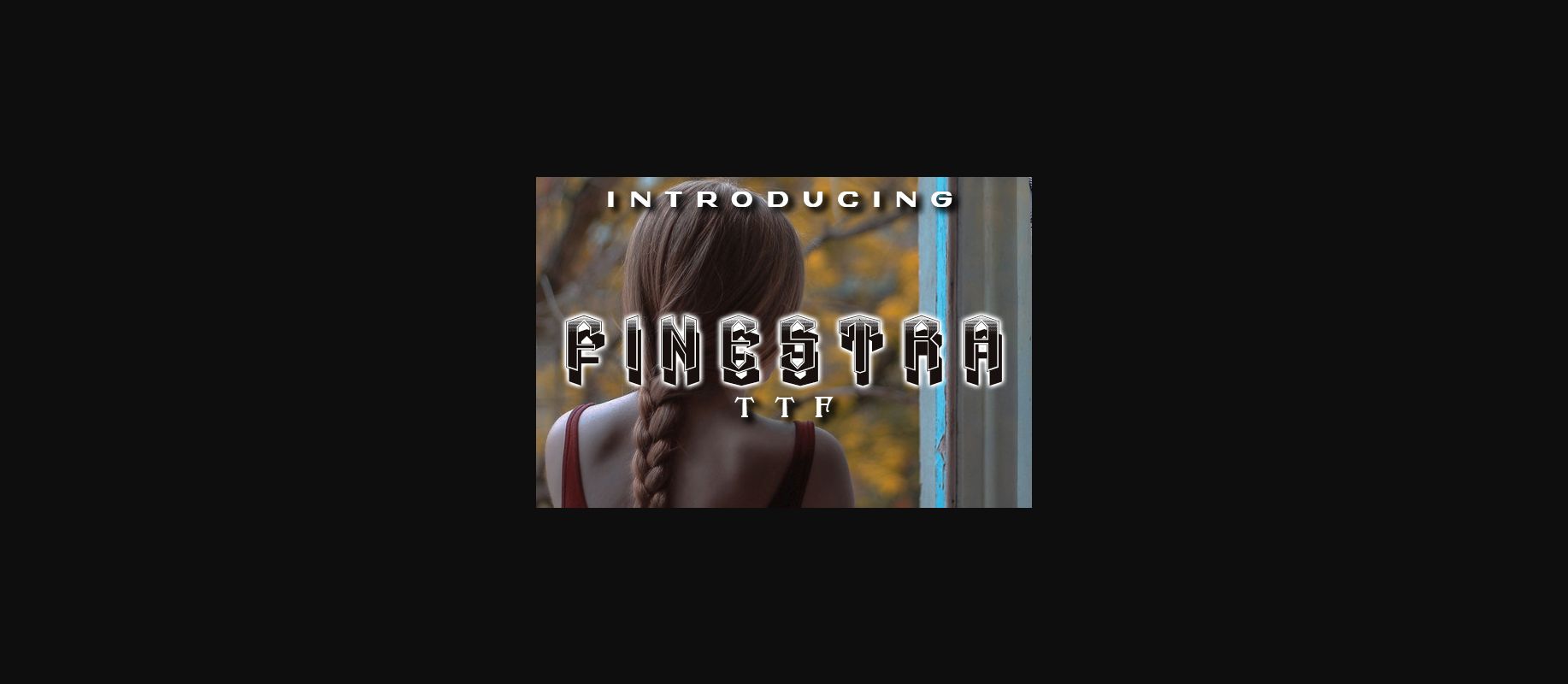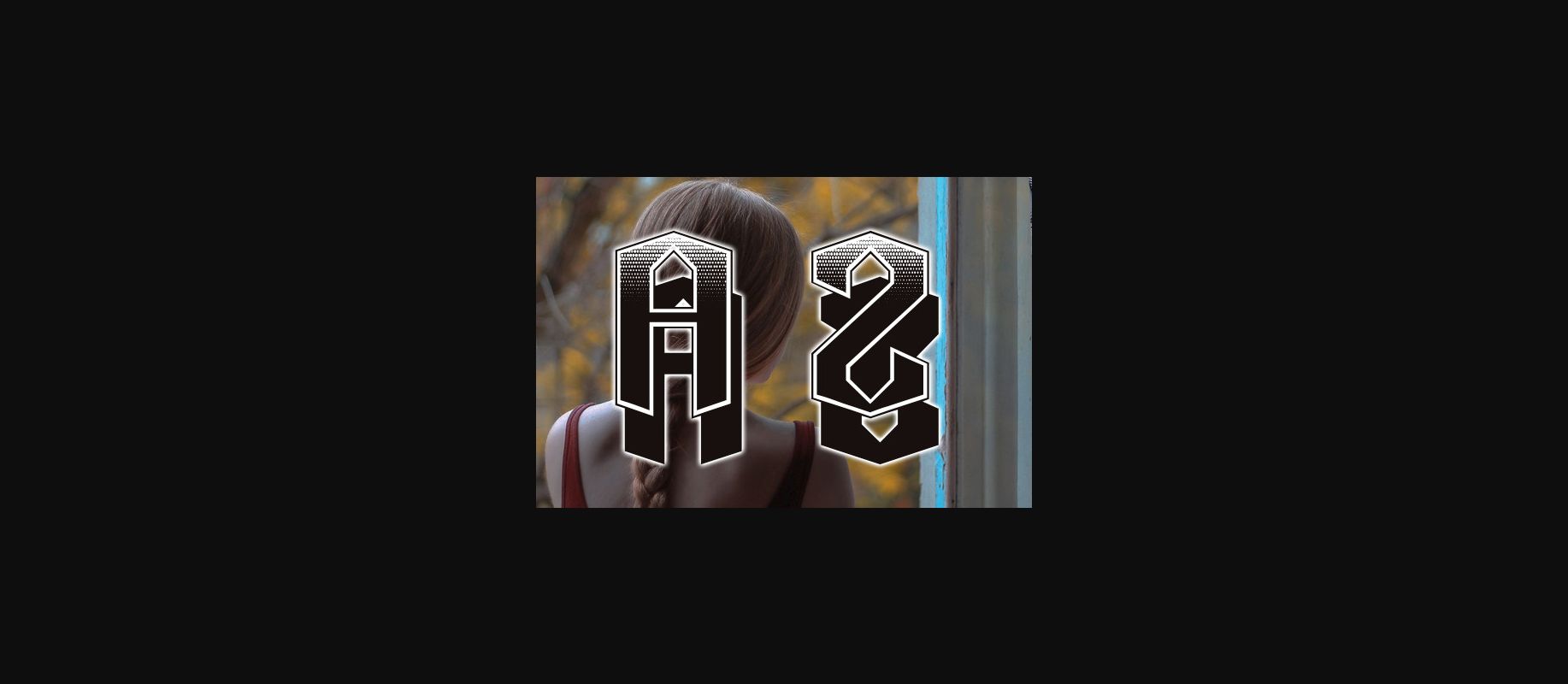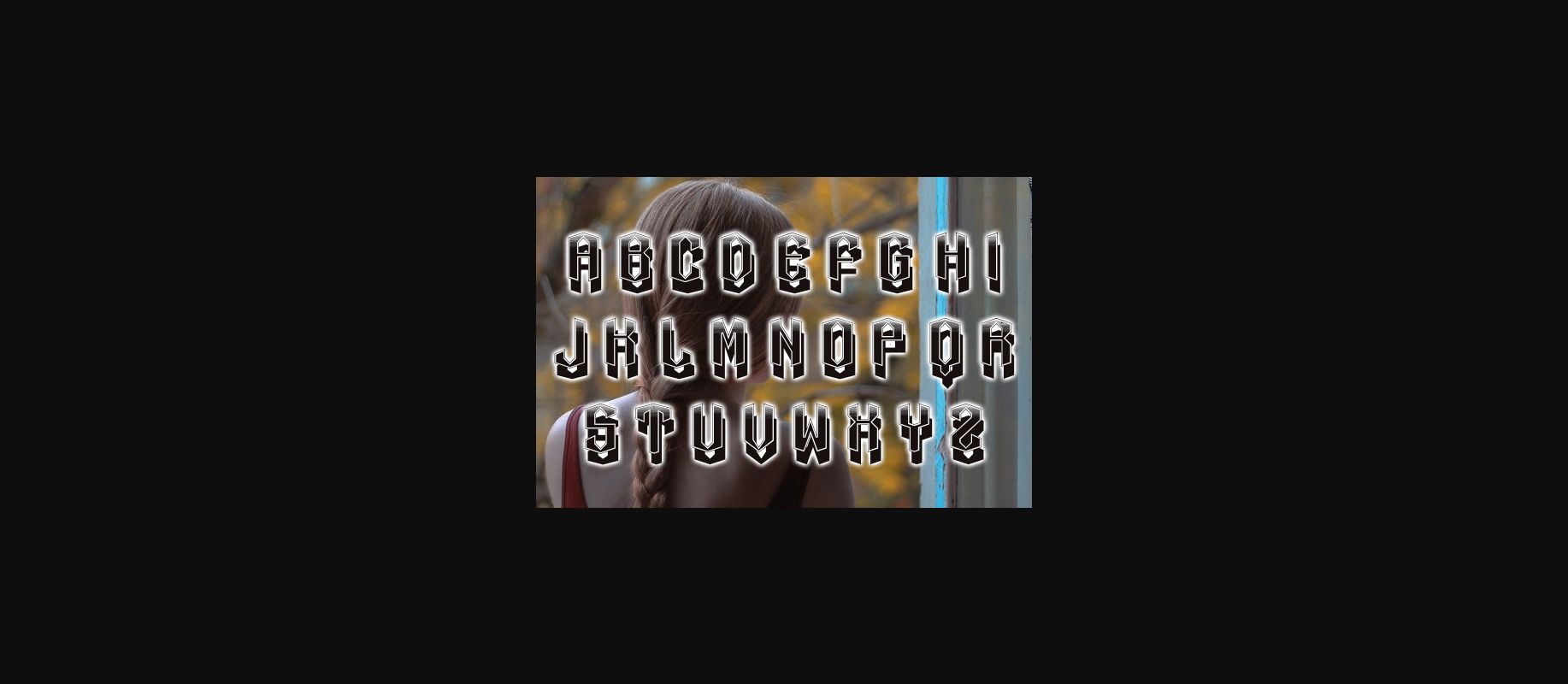
About Finestra Font
Make a bold statement with this attractive and eye-catching decorative font. Finestra’s unique details and playful curves make it perfect for creating attention-grabbing headlines, posters, and graphics. Add a touch of individuality to your designs with this charming and decorative font.